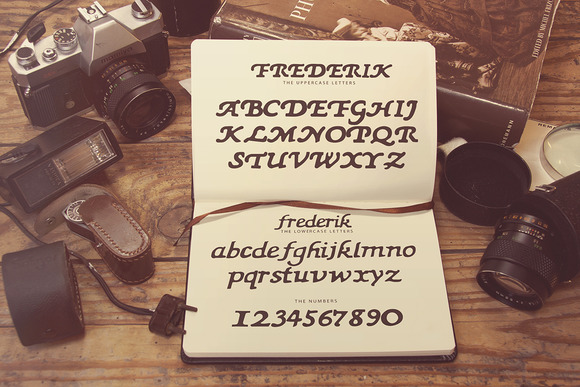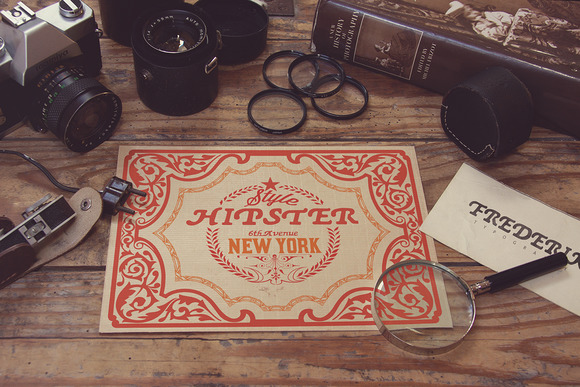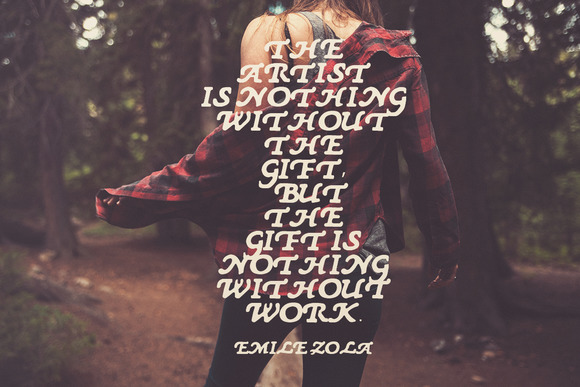
Introducing Frederik Font: A Timeless Classic for Vintage-Inspired Designs
Are you a designer or crafter looking for a font that exudes elegance and sophistication? Look no further than Frederik Font, a classic display font that embodies the essence of retro charm. With its refined features and vintage flair, Frederik is the perfect choice for creating stunning designs that evoke a bygone era.
The Characteristics of Frederik Font
Frederik Font boasts a distinctive, elegant retro feel that is sure to captivate your audience. Its classic design makes it an excellent choice for a wide range of applications, from branding and advertising to packaging and editorial design. The font’s refined lines, subtle curves, and expertly crafted letterforms come together to create a truly timeless look that is both sophisticated and alluring.
What Makes Frederik Font Stand Out
So, what sets Frederik Font apart from other display fonts on the market? Here are just a few key features that make it a standout choice for designers and crafters:
- Elegant Retro Aesthetic: Frederik Font’s classic design is reminiscent of a bygone era, evoking memories of vintage posters, advertisements, and logos.
- Versatility: Whether you’re designing a logo, brochure, or social media graphic, Frederik Font is the perfect choice for creating visually stunning designs.
- High Readability: Despite its ornate appearance, Frederik Font remains highly legible, making it suitable for use in a variety of applications, from headlines to body copy.
- Unique Character: Frederik Font’s distinctive character set includes a range of ligatures, swashes, and alternate characters, allowing you to add an extra touch of personality to your designs.
Using Frederik Font in Your Designs
Frederik Font is an incredibly versatile typeface that can be used in a wide range of design applications. Here are just a few ideas to get you started:
- Branding and Identity: Use Frederik Font to create a memorable logo or brand identity that exudes elegance and sophistication.
- Advertising and Marketing: Frederik Font’s vintage flair makes it perfect for creating eye-catching advertisements, posters, and social media graphics.
- Packaging Design: Add a touch of classic charm to your product packaging with Frederik Font, ideal for luxury brands, food and beverage packaging, and more.
- Editorial Design: Use Frederik Font to create stunning editorial designs, including magazine covers, articles, and blog posts.
Tips for Getting the Most Out of Frederik Font
To truly make the most of Frederik Font, here are a few expert tips to keep in mind:
- Pair with Modern Fonts: Combine Frederik Font with modern sans-serif fonts for a striking contrast that adds visual interest to your designs.
- Experiment with Ligatures: Take advantage of Frederik Font’s ligatures and swashes to add a touch of personality to your designs.
- Play with Color: Frederik Font looks stunning in a range of colors, from rich jewel tones to metallic finishes.
In conclusion, Frederik Font is a timeless classic that is sure to elevate your designs to new heights. With its elegant retro aesthetic, versatility, and high readability, Frederik Font is the perfect choice for designers and crafters looking to create stunning vintage-inspired designs. Whether you’re working on a branding project, advertisement, or editorial design, Frederik Font is sure to make a lasting impression.